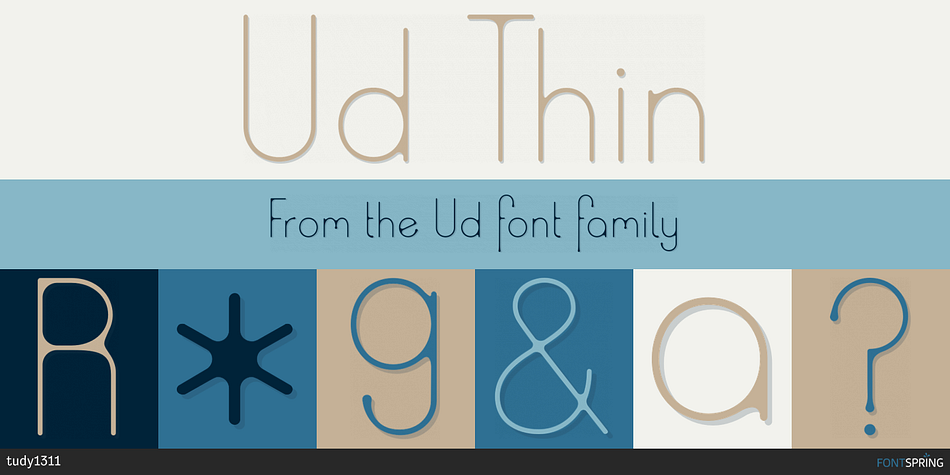
Ud Thin
Designed by Tudor Banciu, Ud is a hand drawn font published by tudy1311.
A thin, sans serif with a few
A thin, sans serif with a few ‘inconsistencies’ in the difference between the stems and x-height, for the purpose of making it a bit more informal. The concept is, to portray a rounded, friendly looking, simple font, and then create a visual effect to suggest it has been written with too much ink. All the places where two lines should cross and ought to create a sharp corner, this font is rounded off, to give it that bleed effect.
Some of the descenders and shapes have a bubble serif ‘symptom’, to suggest, the excess ink has started dripping downwards.
The font is easy to read in both very small text size, and just as useful in big. But of course, for the smaller versions, the rounded corners and “dripping” serifs are not as noticeable.
It works for a big variety of tonalities, from a bloody look all the way to a jelly/candy look.